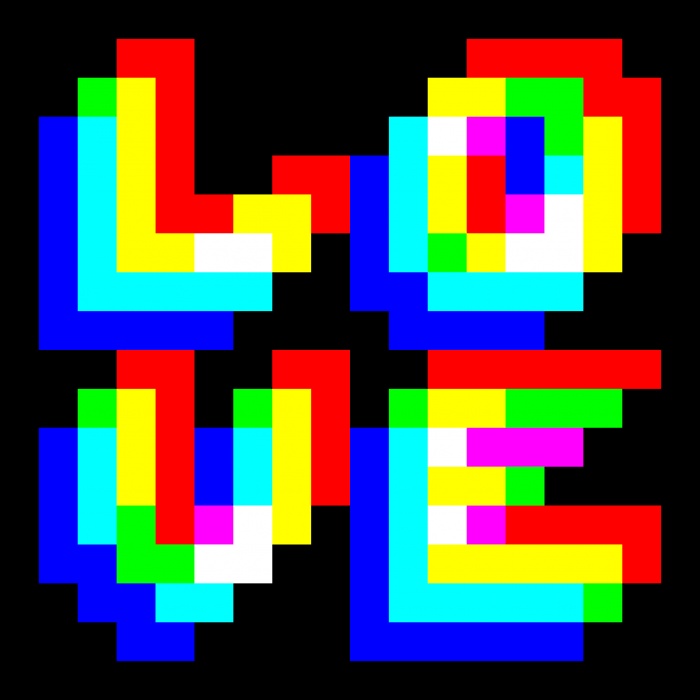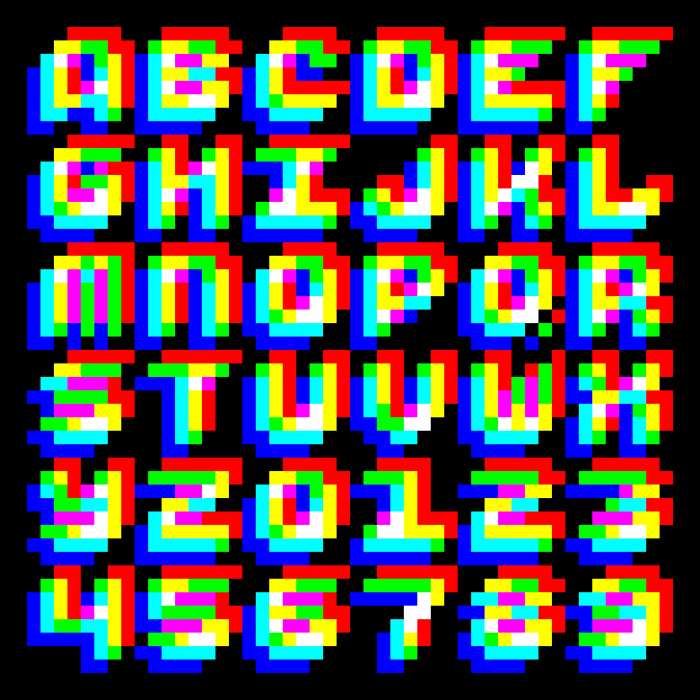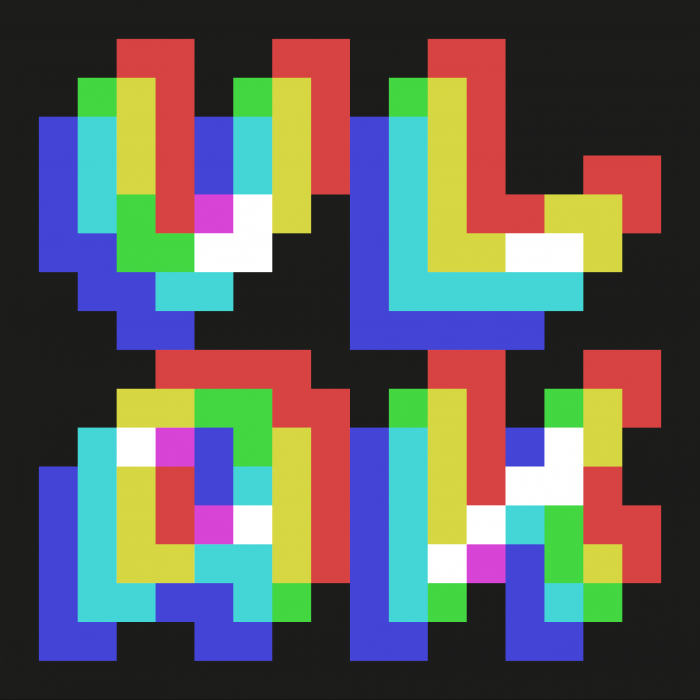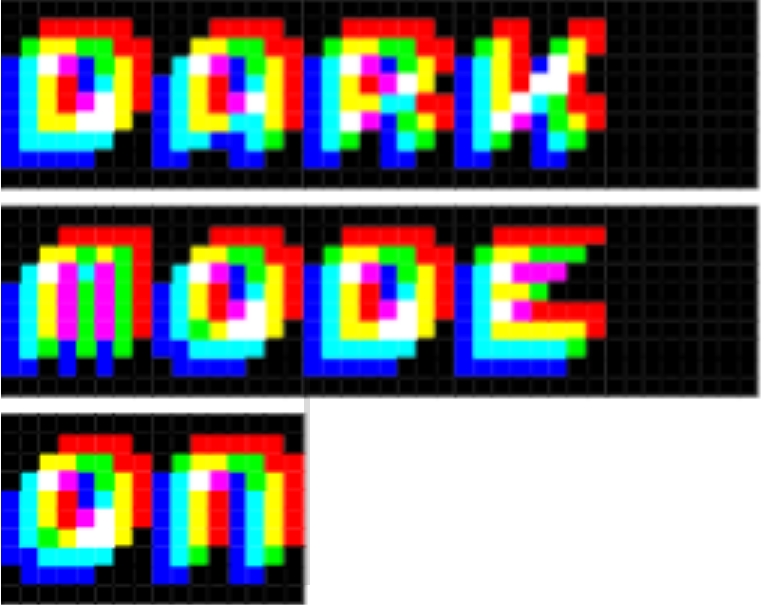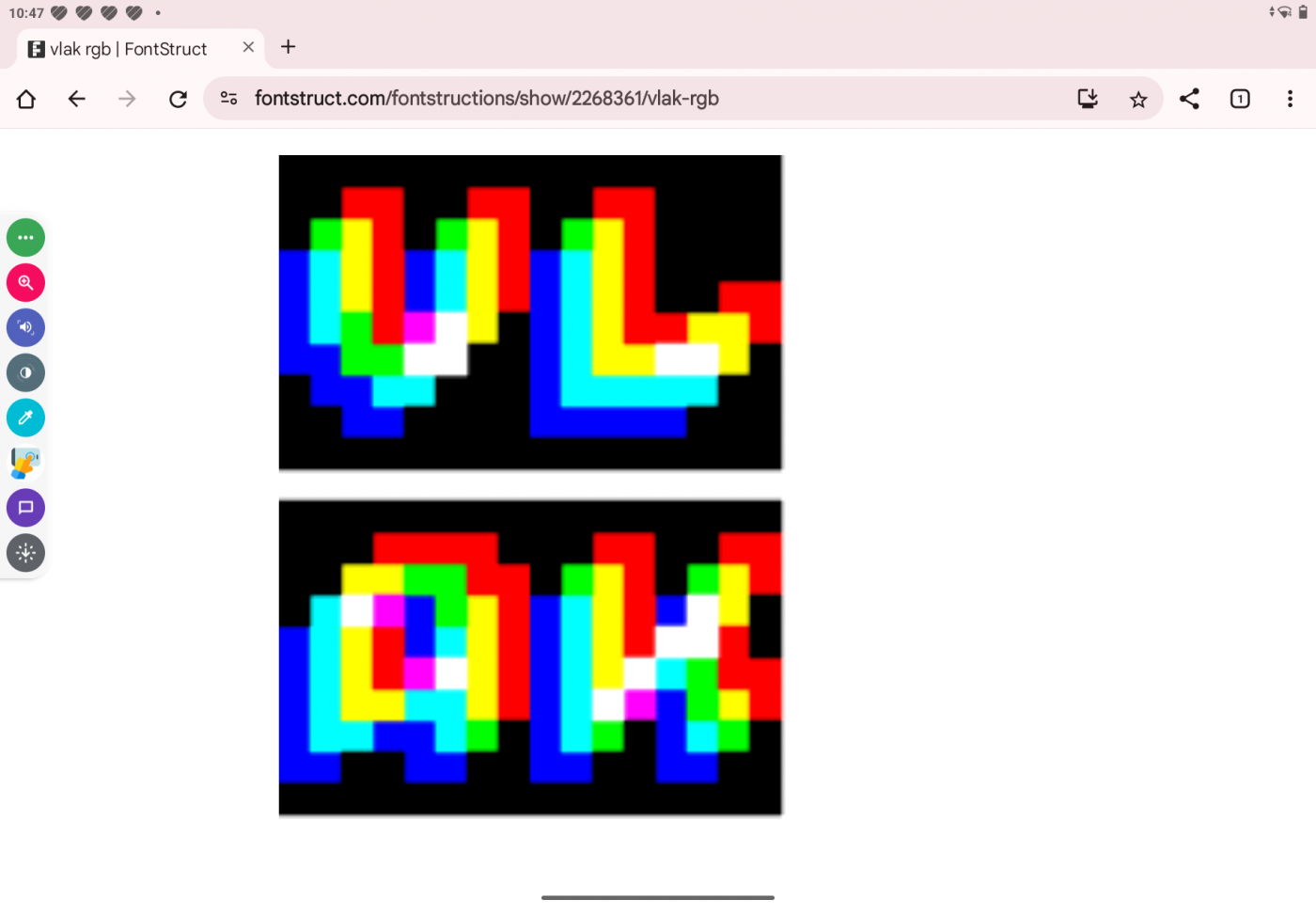
• Feeling inspired after reading Arcade Game Typography: The Art of Pixel Type by Toshi Omagari, I set out to make my own 8x8 pixel font. I worked with a similar approach to the one I used in the larger grid font offstruct rgb.
First started in Adobe Illustrator, each character consists of three iterations of the same 6x6 pixel letter: in RGB Red, Green and Blue. These were layered, offset by one pixel diagonally, filling the 8x8 box. To achieve additive blending, I applied the "Lighten" transparancy setting. Combinations of overlaying these three primary RGB colours result in the secondary RGB coloured pixels Yellow, Cyan and Magenta. In the additive mixing of coloured lights, the equal blending of all three primary colours results in White. All pixels were then entered manually into the fontstructor and black pixels were added for display purposes.
Nice! Can’t even imagine how you endured the process of making it, if I get dizzy after around ten seconds of just lookjng at
@four - Impressive experiment!  :^)
WOW! ¡Preciosa! Excellent and beautiful experiment, as @Goatmeal said! I like it even better than offstruct, congratulations! ❤️??
Dizzying indeed those those hard rgb colors
I wonder what this would look like with the RYB colors for mixing paints?
A toned down version that is a bit easier on the eyes.
Personally, I prefer the first smashing colors.
I need some 3D glasses now